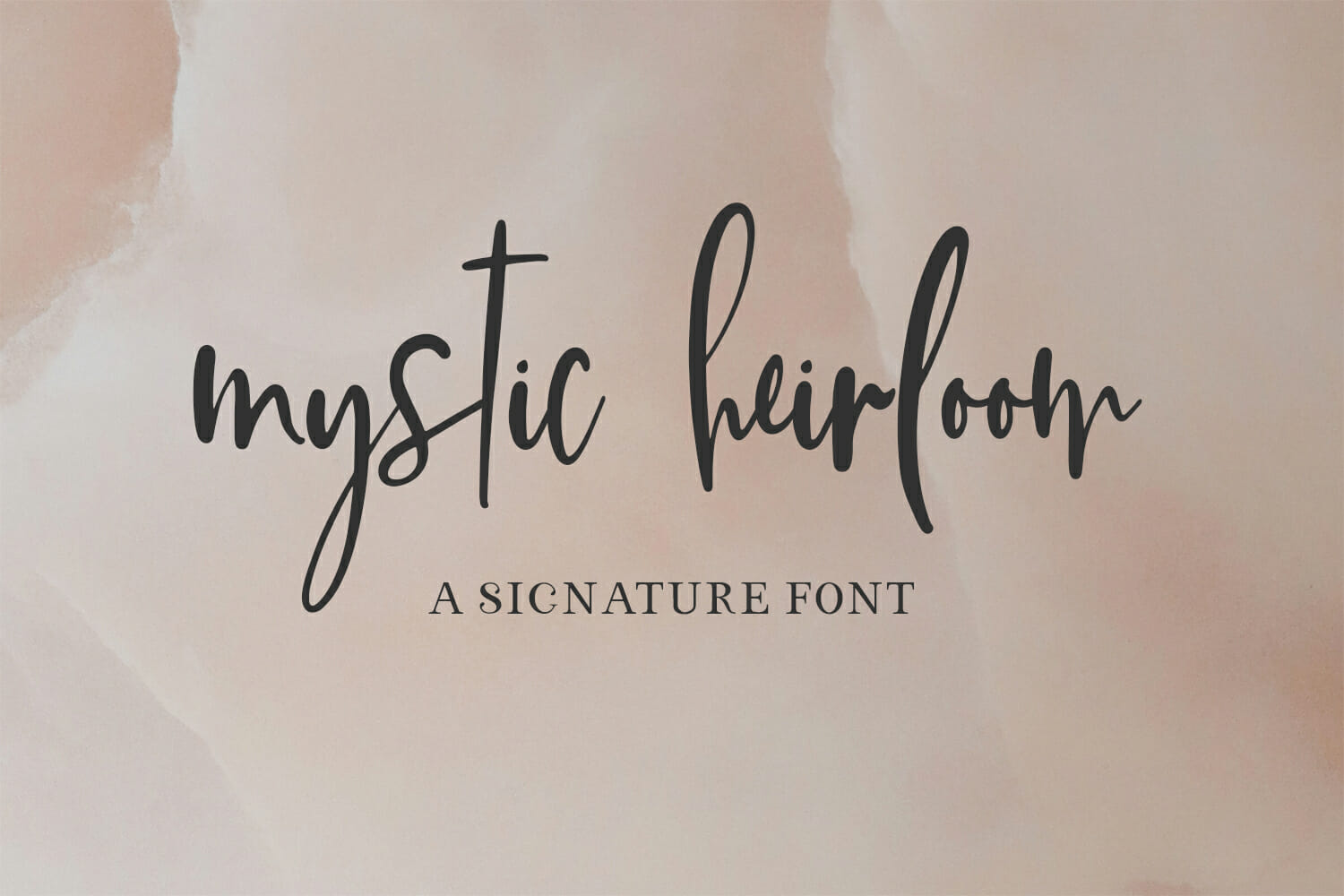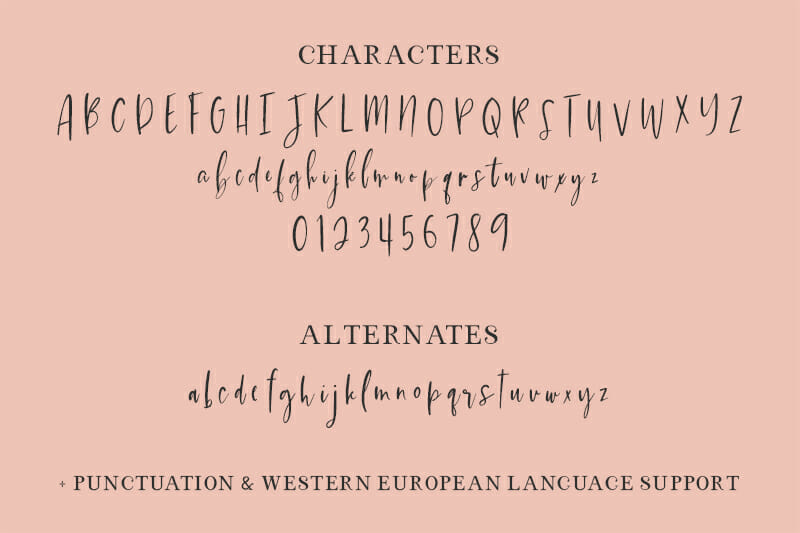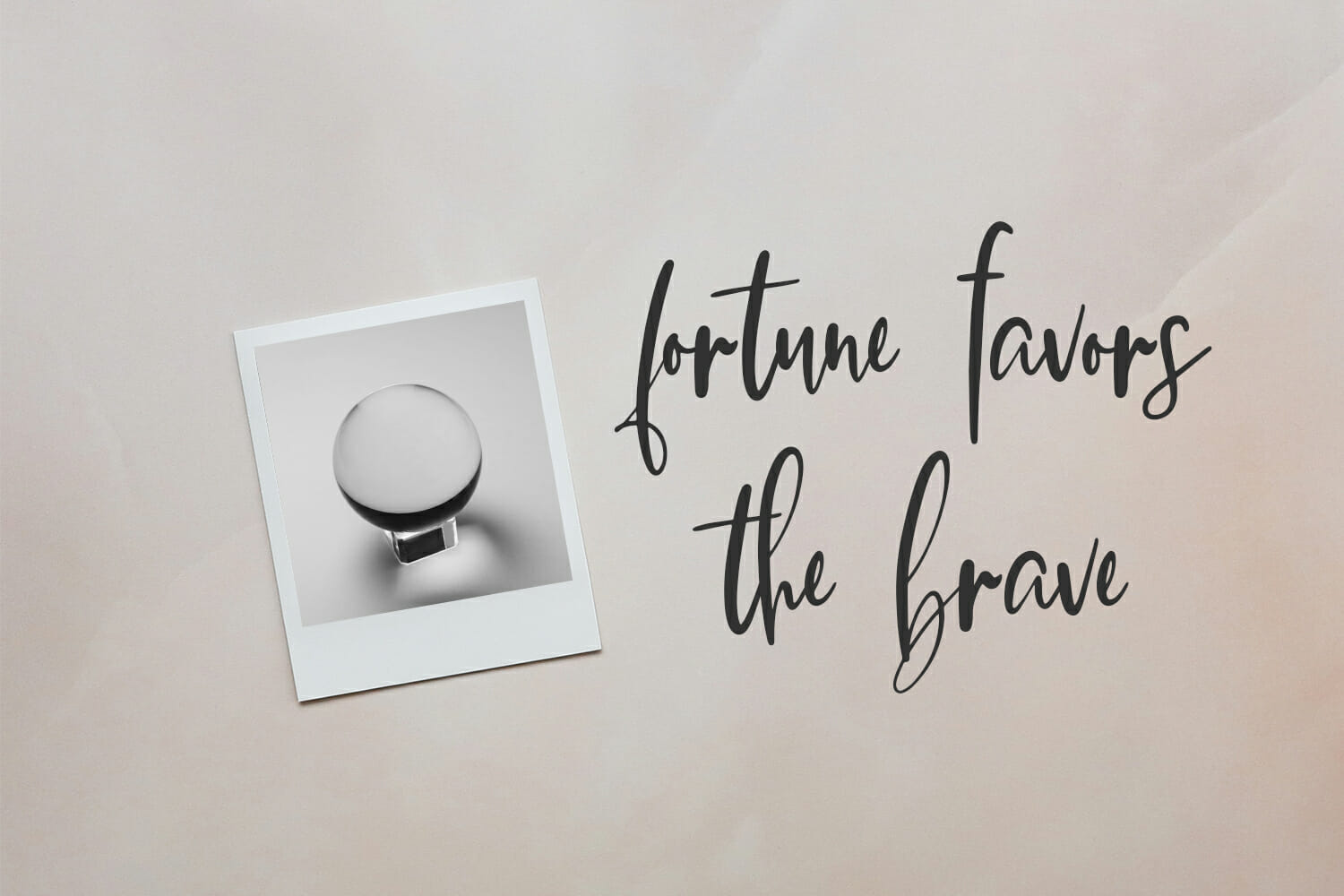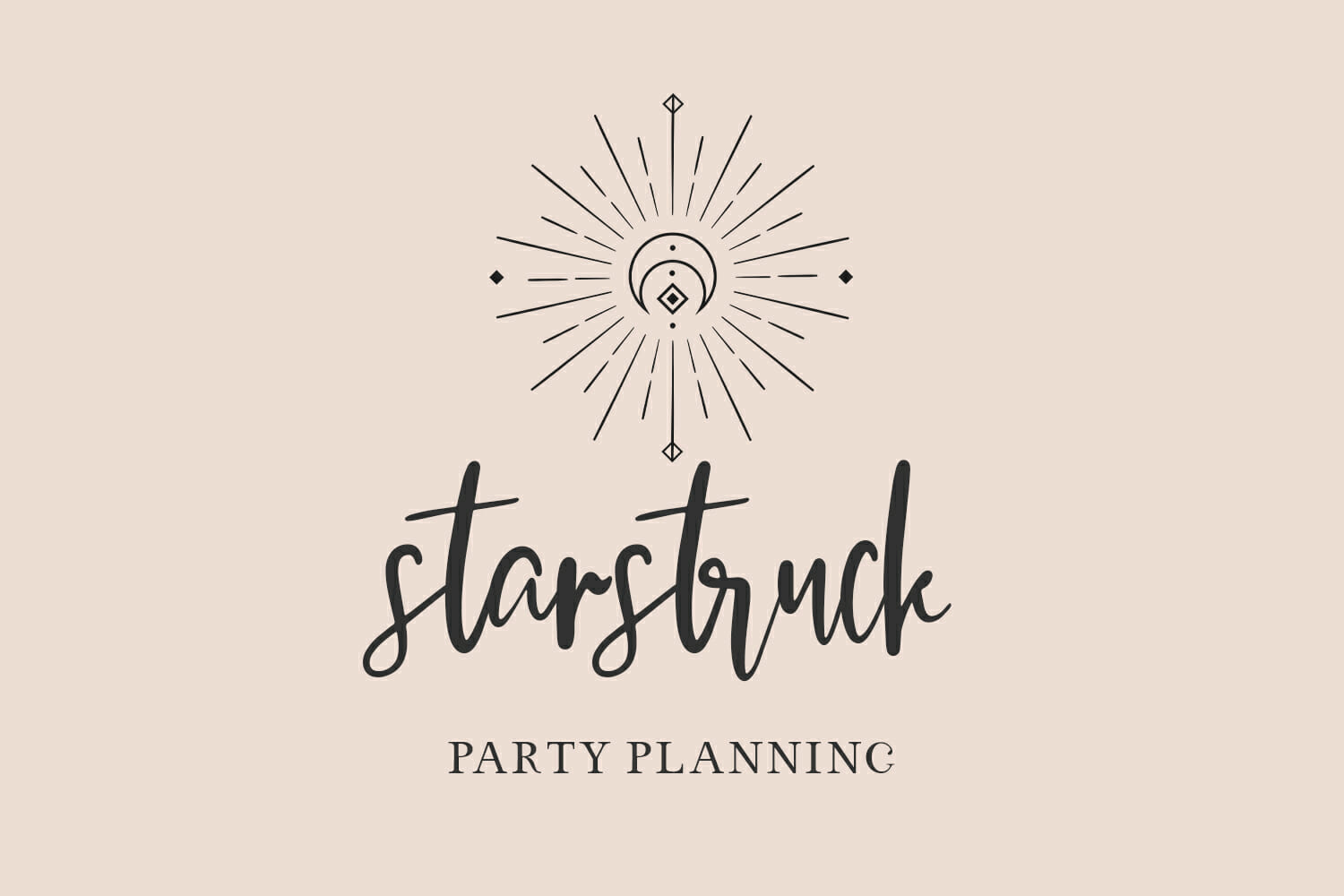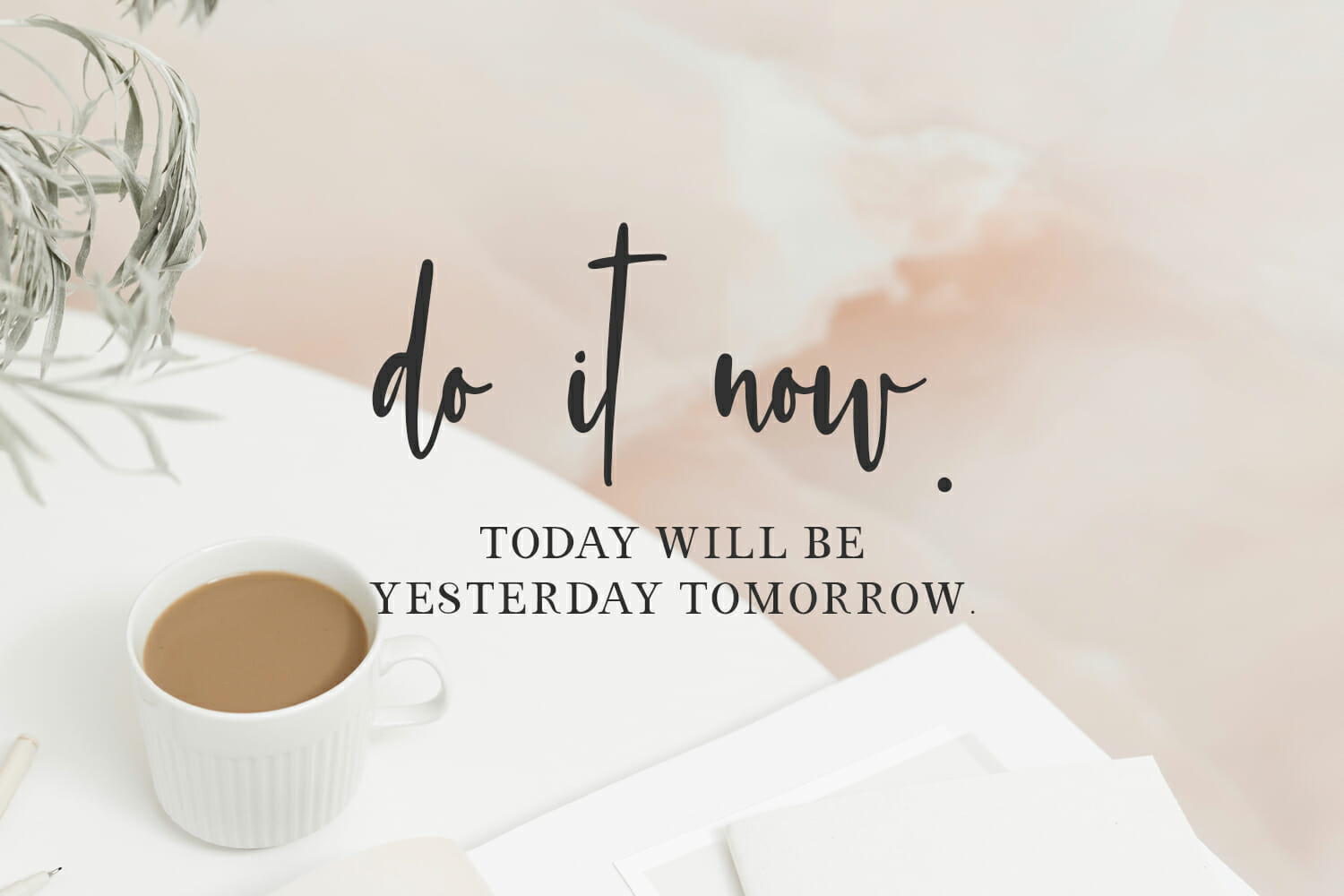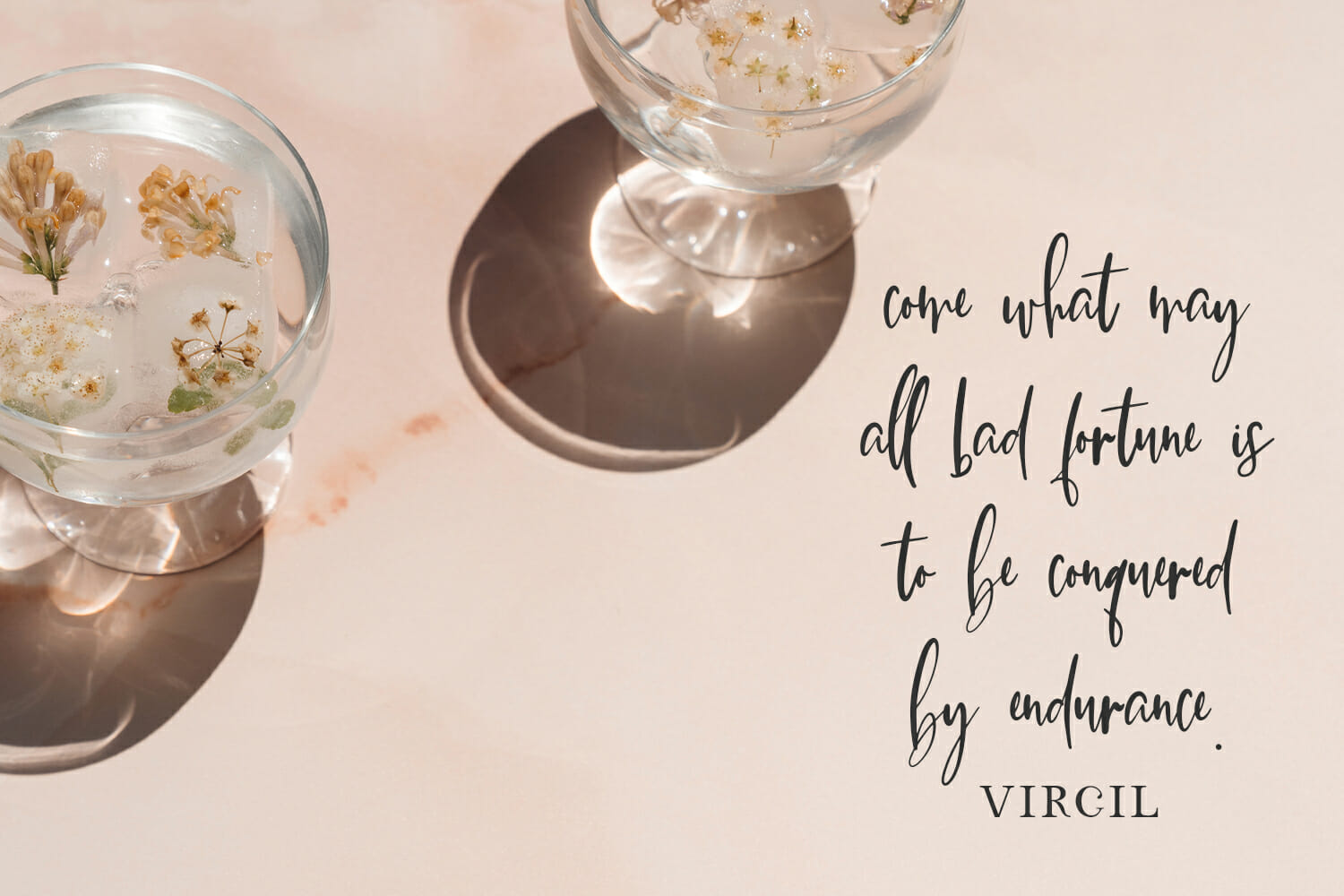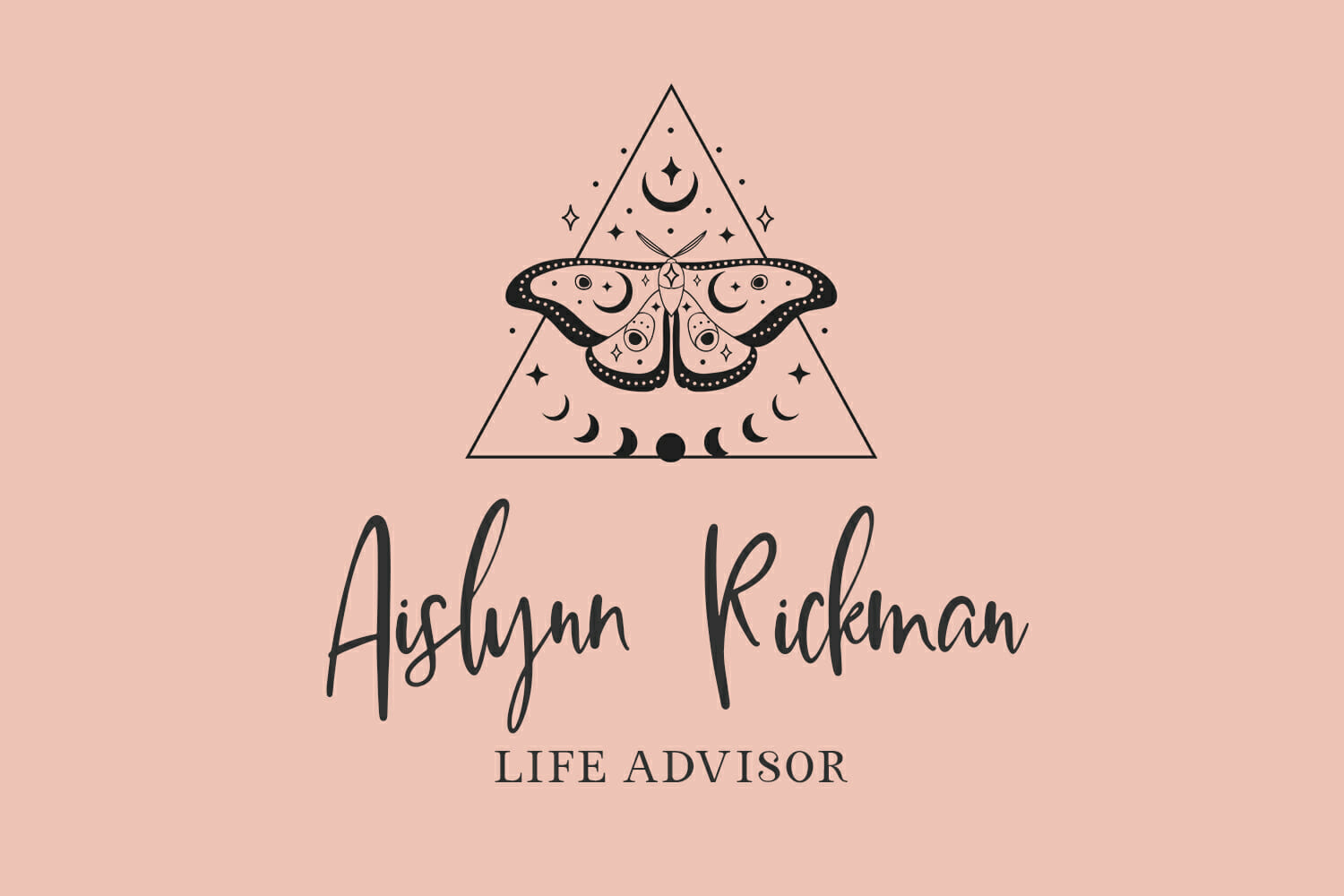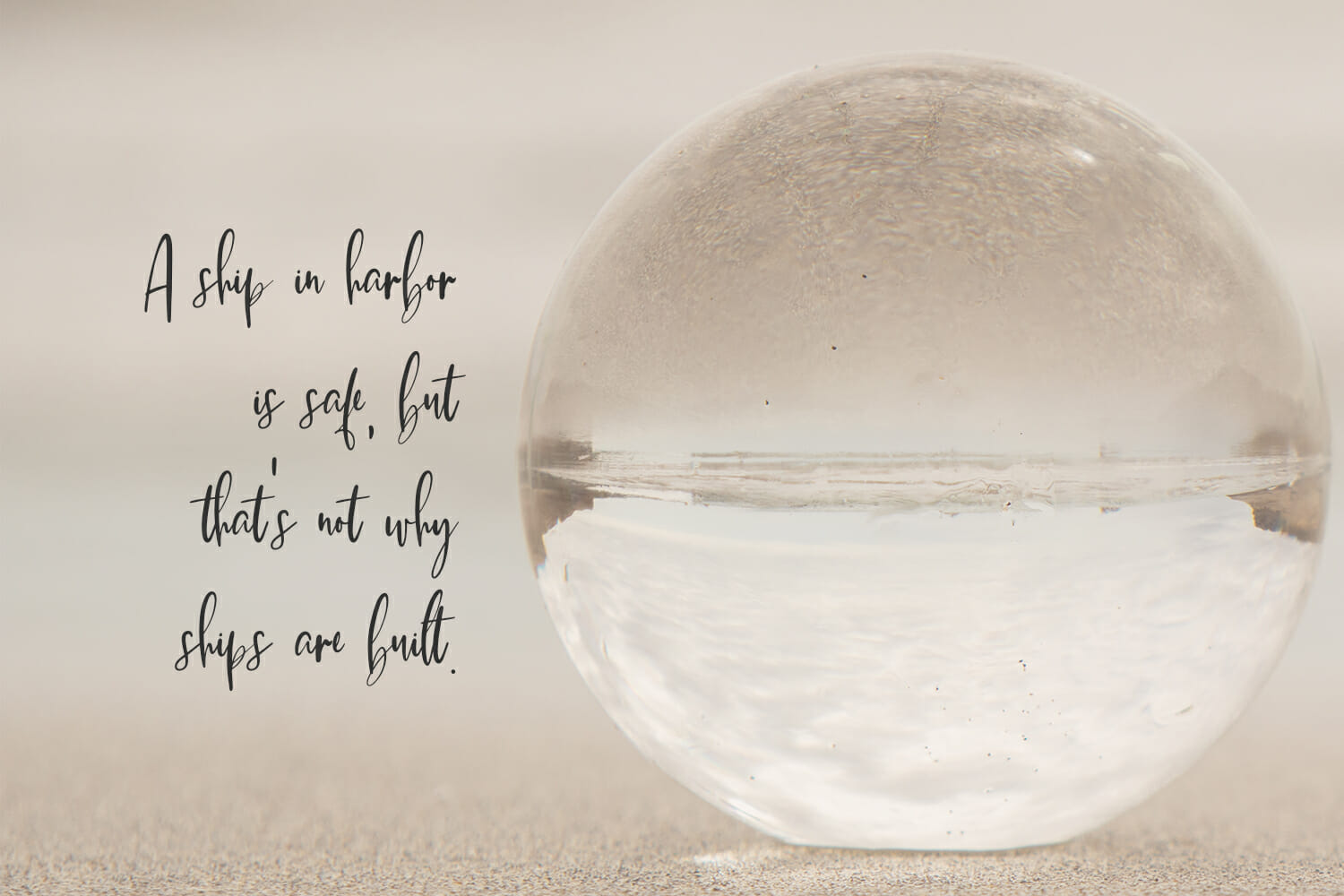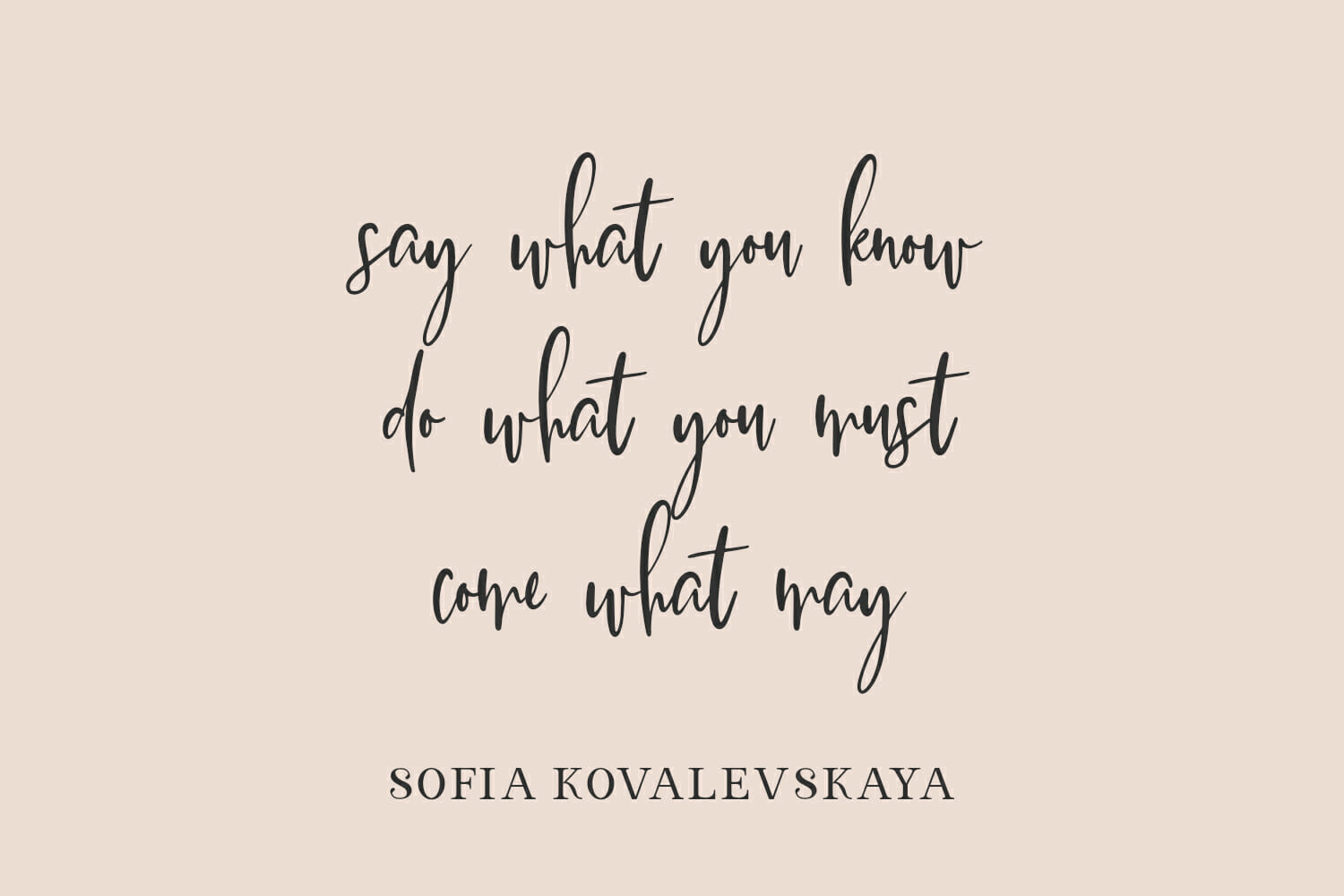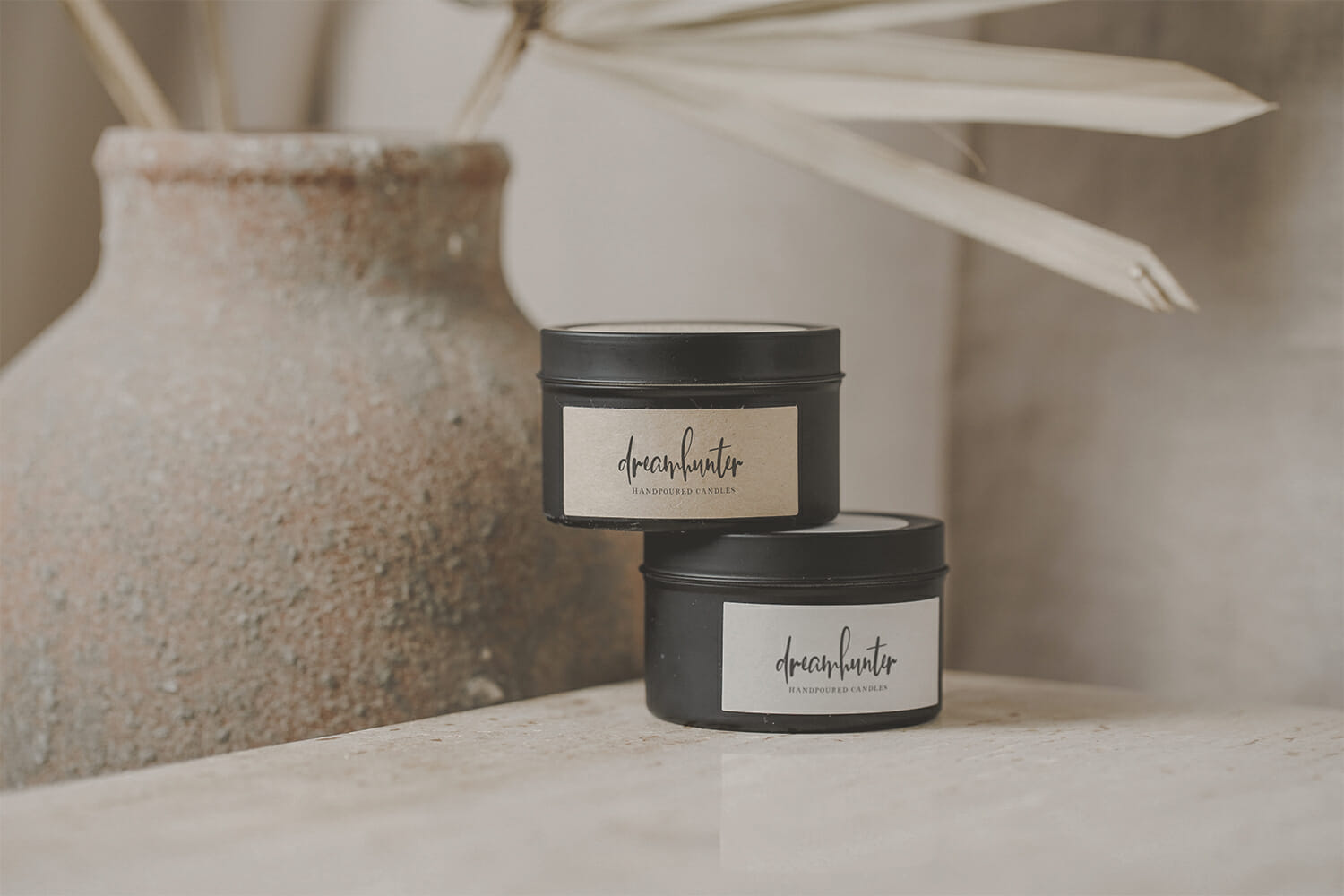
Mystic Heirloom Script
Introducing Mystic Heirloom Script, a handwritten signature style font. This chic, stylish font features a messy, casual look like handwriting, making it perfect for a signature style logo!
Mystic Heirloom includes:
– 26 lowercase alternates